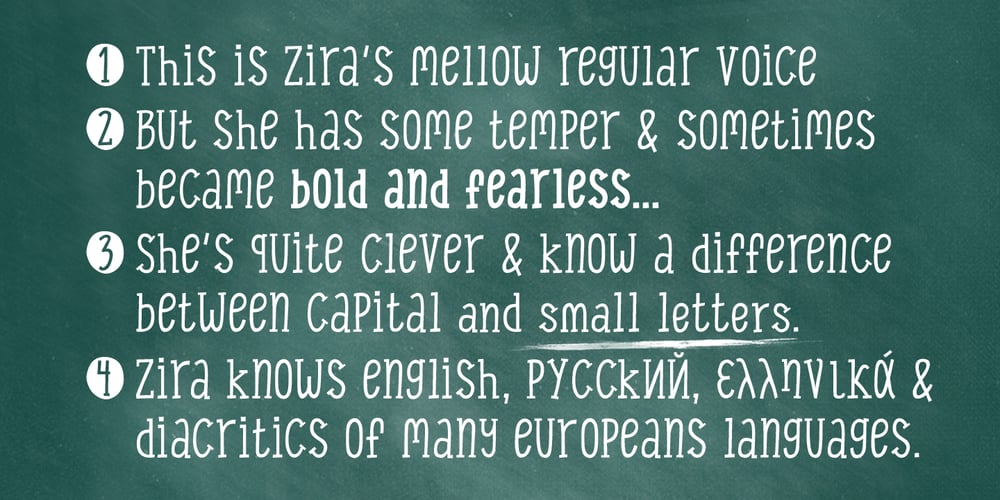
Zira Font Family was designed by Daniel Bak and published by Artcity. Zira contains 4 styles and family package options. Zira is a playful hand-drawn font family designed by Daniel Bak (Artcity). It is available in three handy weights: regular, bold and screaming. It contains international language accent marks and diacriticals, including Greek and Cyrillic. Zira can be considered as smoothed serif version of Cornelius font. Zira as Cornelius as well is a chimpanzee character in the novel and movie series Planet of the Apes. Dr. Zira is a chimpanzee psychologist and veterinarian, who specializes in the study of humans, in the novel and subsequent movie series Planet of the Apes. Zira was played in the first three Apes movies by actress Kim Hunter. Unique among the Apes characters, Zira has blue eyes. Zira is the fiancée (later wife) of Cornelius, and both are ultimately responsible to the Minister of Science, Dr. Zaius. Zira’s character and role are essentially the same in both the novel and the movies, though some story details differ. Her work in each involves both working with humans under laboratory conditions (e.g. learning and behavioural experiments), and working on them physically (lobotomy and other brain surgeries, vivisection, physical endurance and tolerance experiments, and subsequent autopsies). Zira is an outspoken liberal by nature, deploring war and militancy (and despising the gorillas, who seem to make both a way of life), and eager to seek and develop intelligence anywhere it can be found. Zira literally stands for her principles – or refuses to stand, as the case may be.